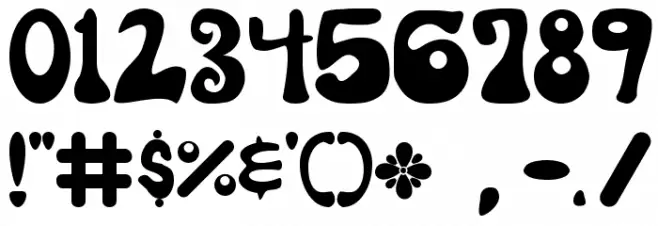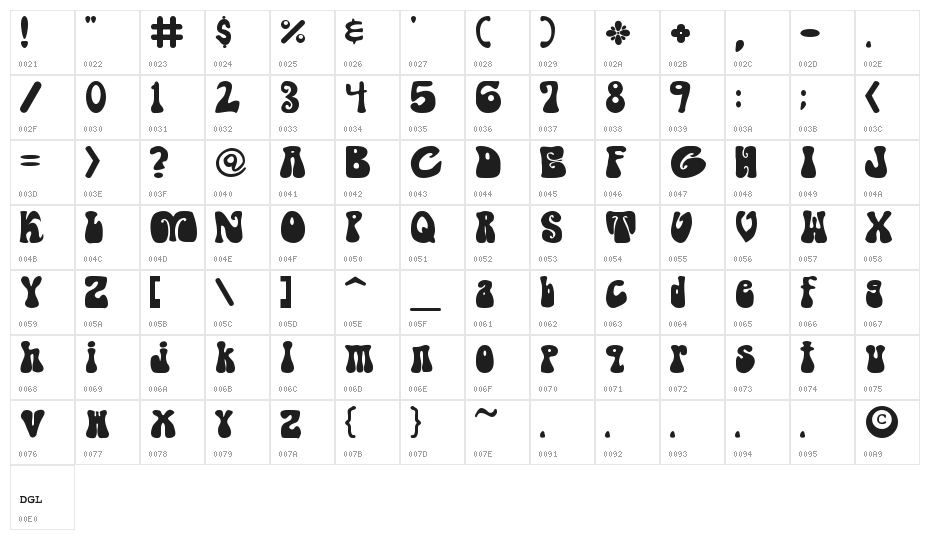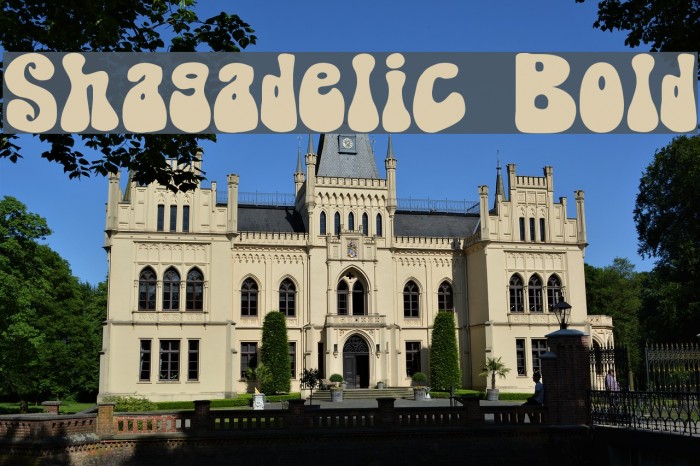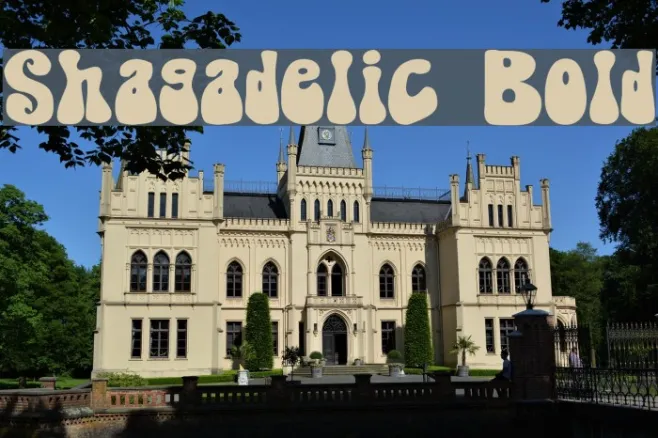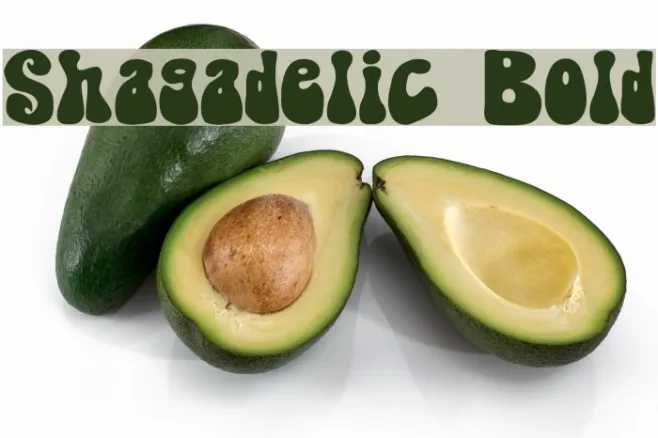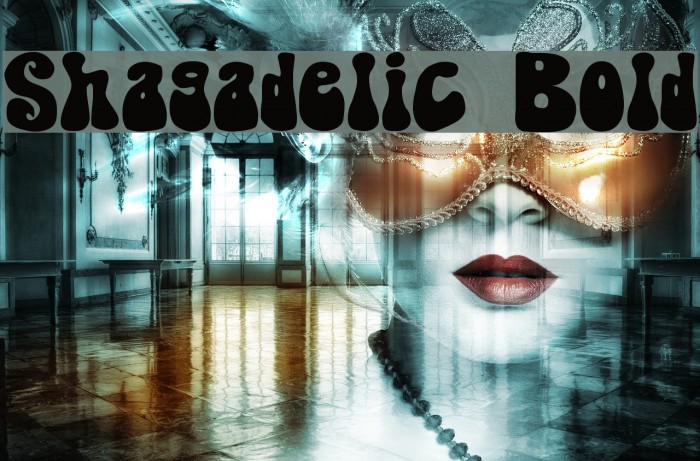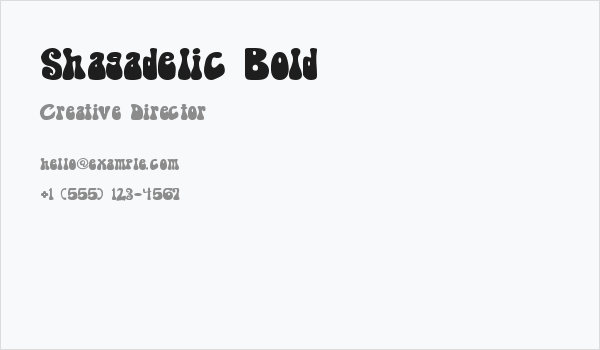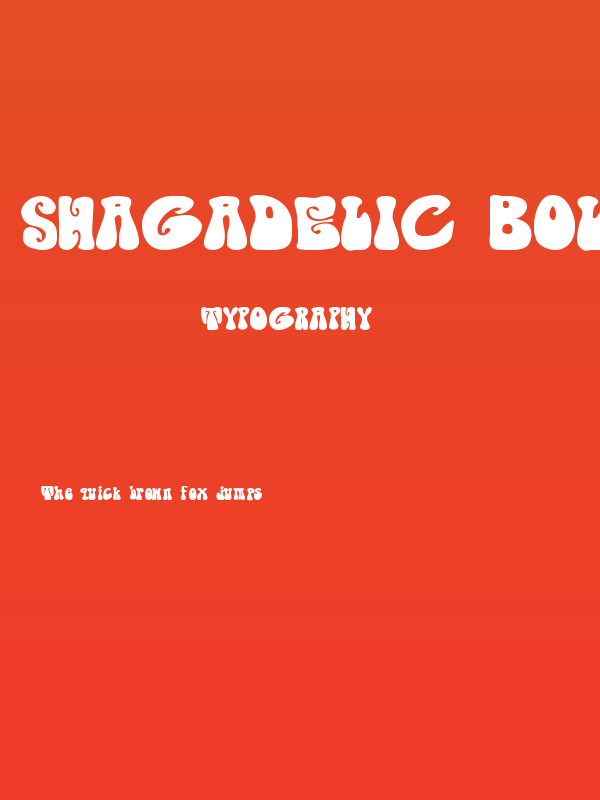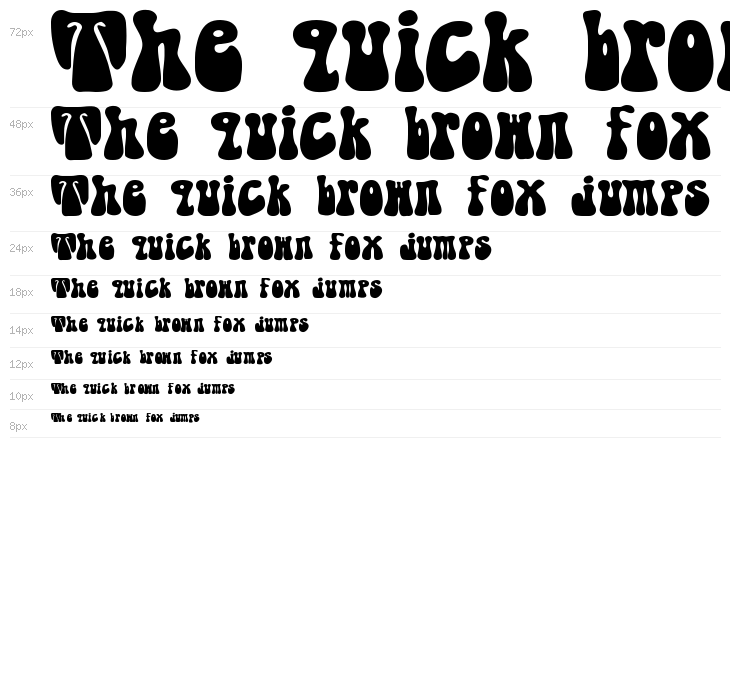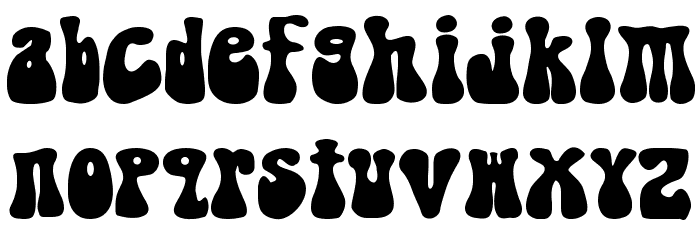
Shagadelic Bold Font
Shagadelic Bold Description
This font features a bold, playful design with a distinctly retro vibe. The characters are rounded and bulbous, giving them a groovy, psychedelic appearance reminiscent of the 1960s and 70s. The exaggerated curves and thick strokes create a sense of movement and energy, making it ideal for eye-catching designs. The font maintains a consistent weight throughout, with each letterform exhibiting a unique, organic shape that adds to its whimsical charm. The numbers and special characters follow the same stylistic approach, ensuring a cohesive look across all text elements.
| Overall Style | Vintage |
| Proposed Projects | Ideal for retro-themed posters, album covers, event flyers, and branding projects that aim to capture a vintage, playful aesthetic. |